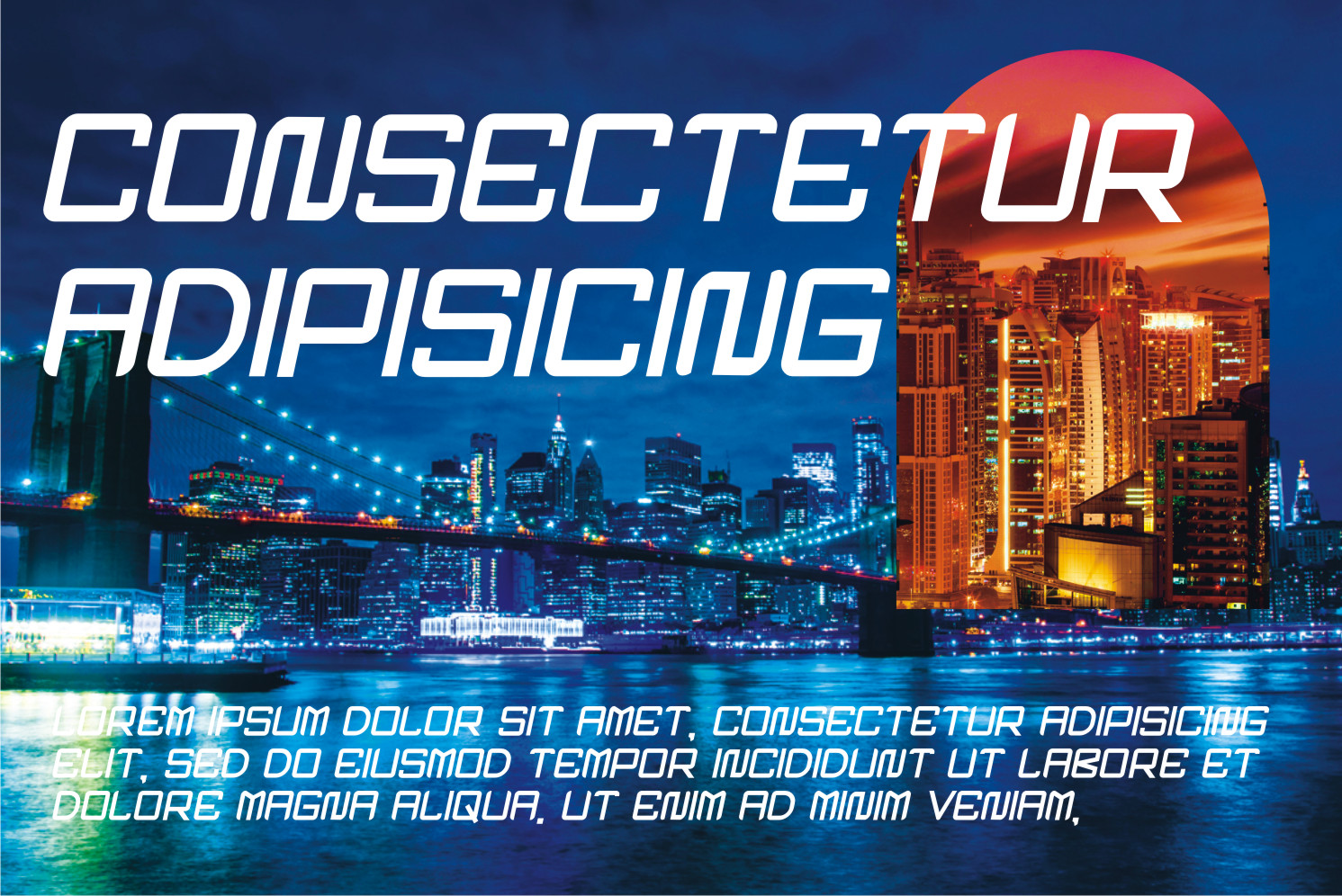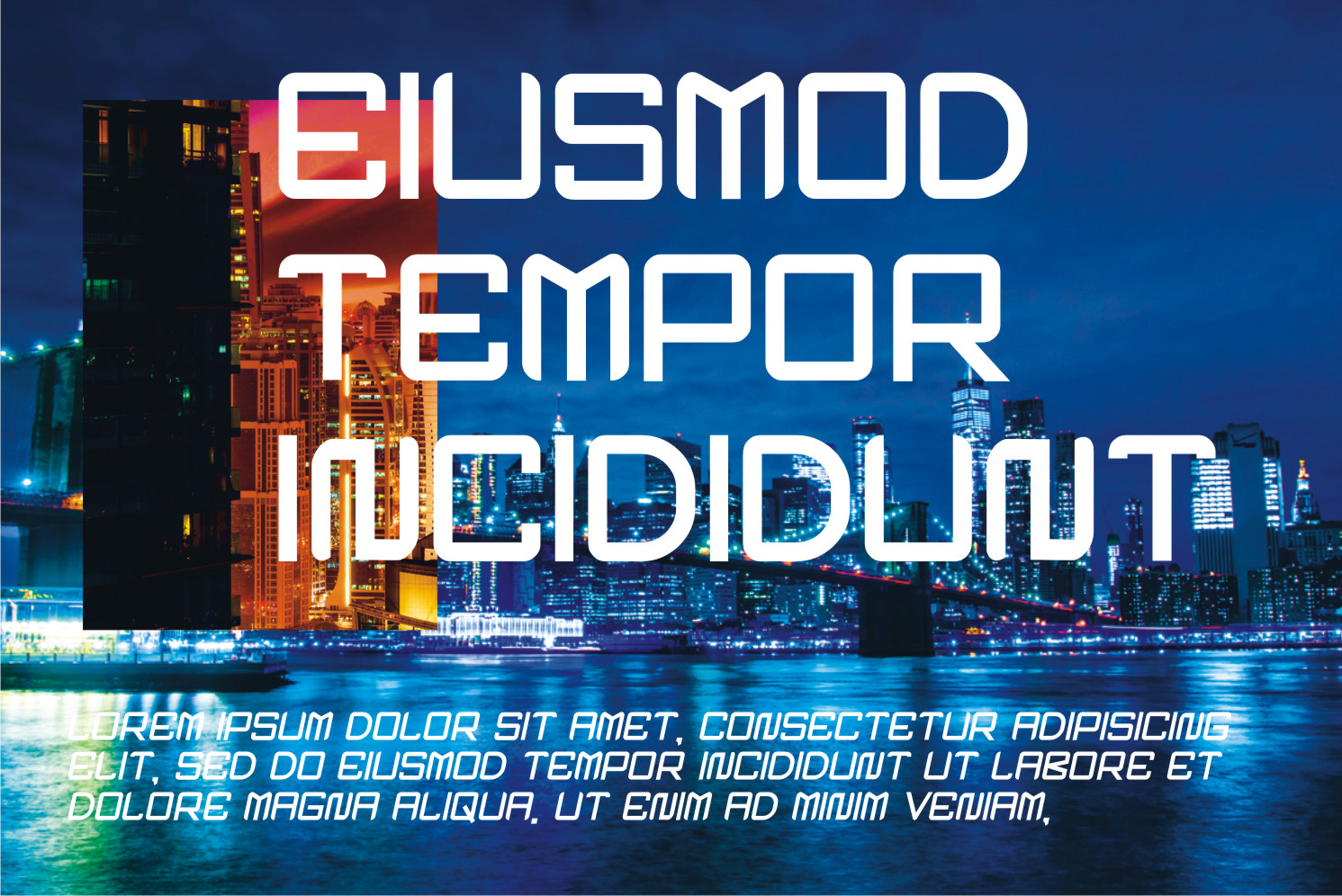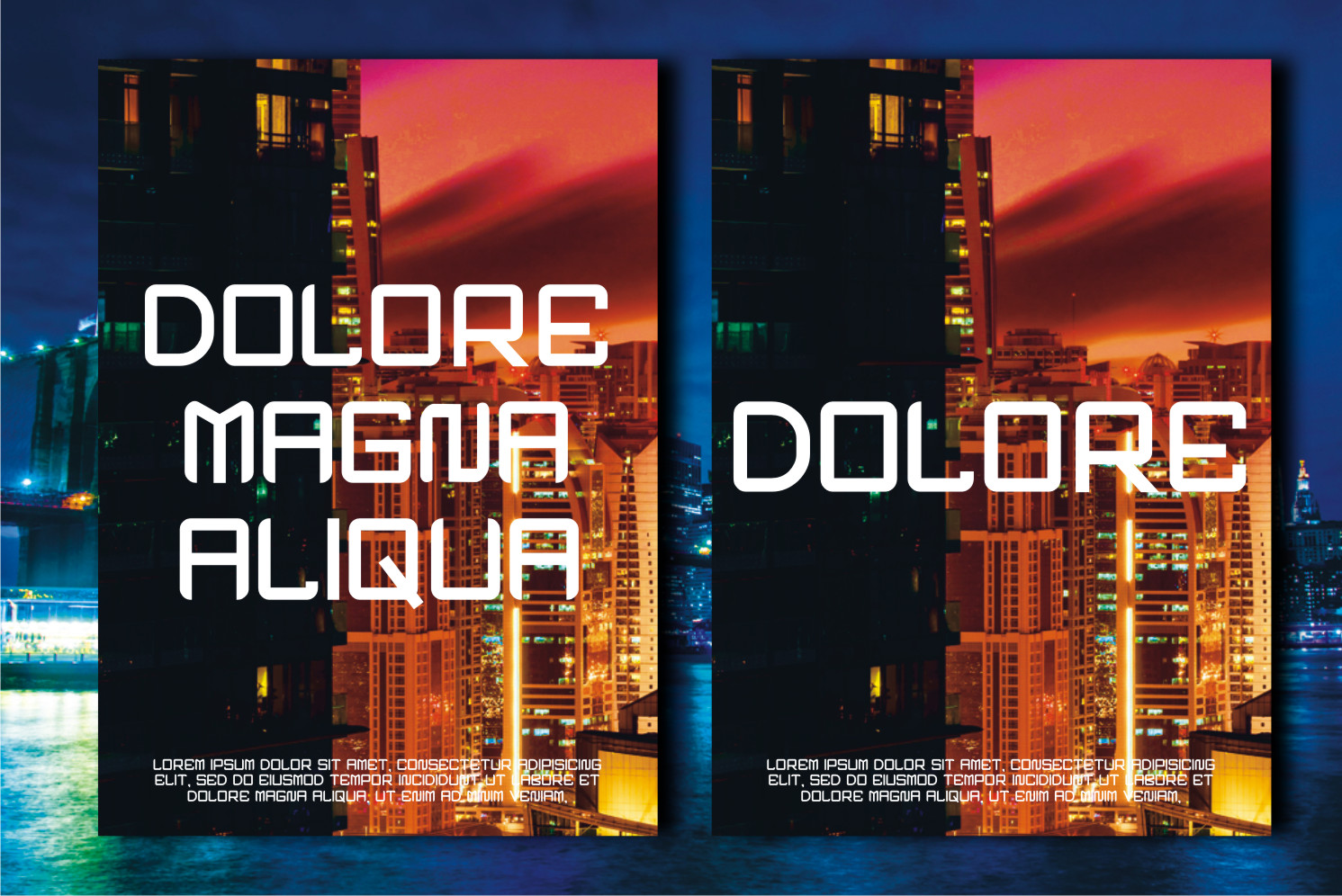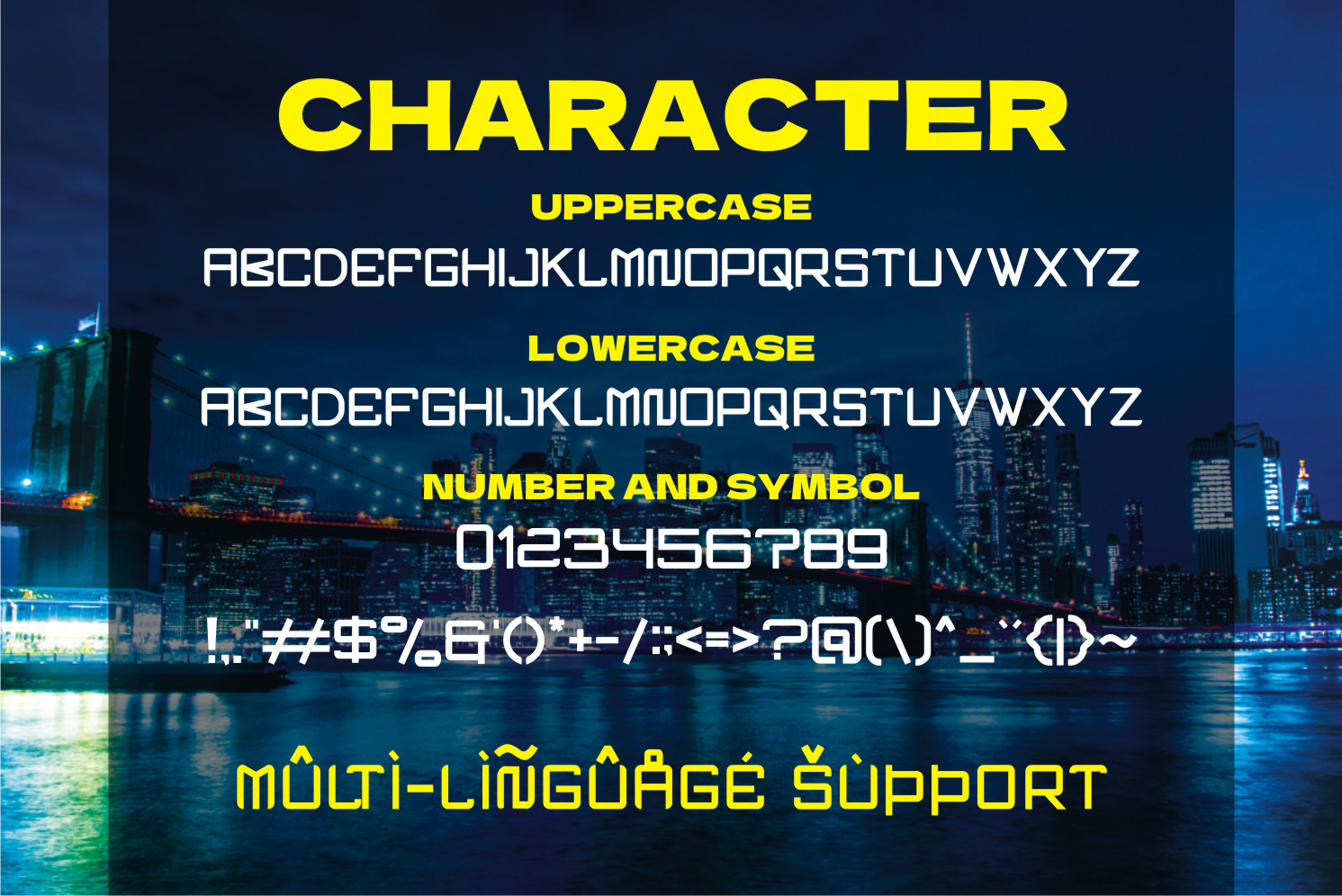
Brucka Display Font
This is a cool, robotic and modern looking display font. This font is ideal for writing web designs, business cards, or pretty much anything else that requires a unique touch.